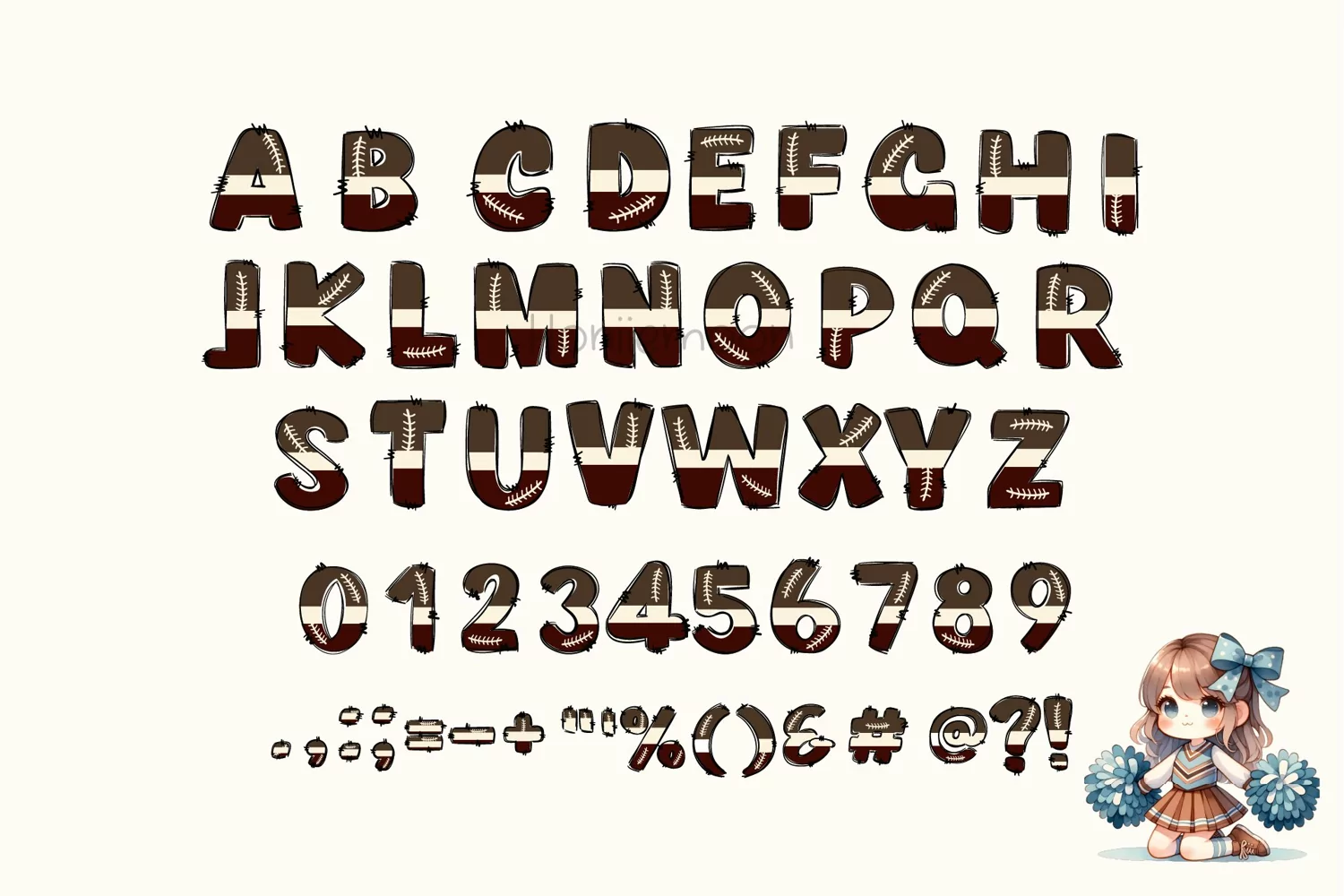
American Football Colorfont
American Football Colorfont perfect for your favorite projects such as posters, flyers, social media, movie and book titles, invitations, stickers t-shirts, logos, advertisements, clothing, and so much more.